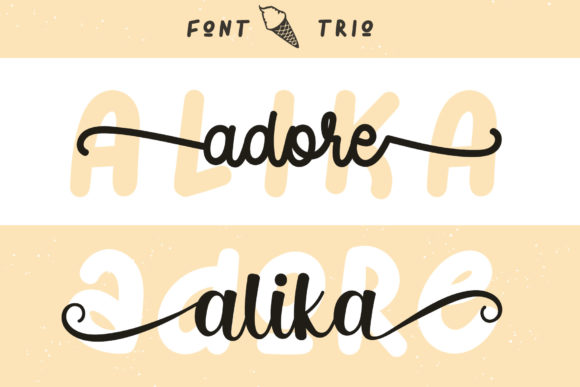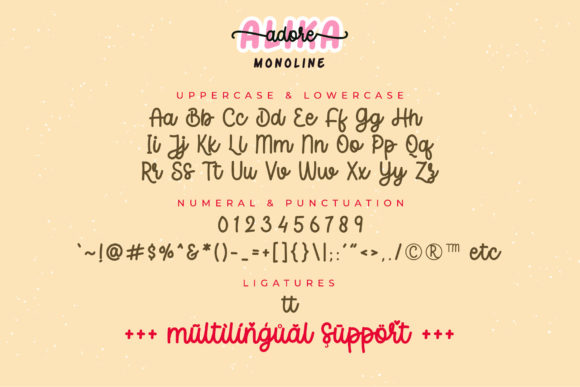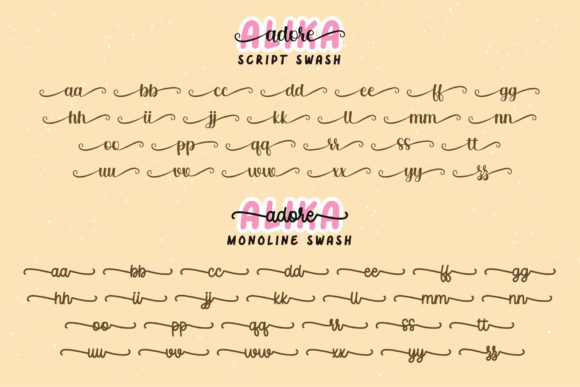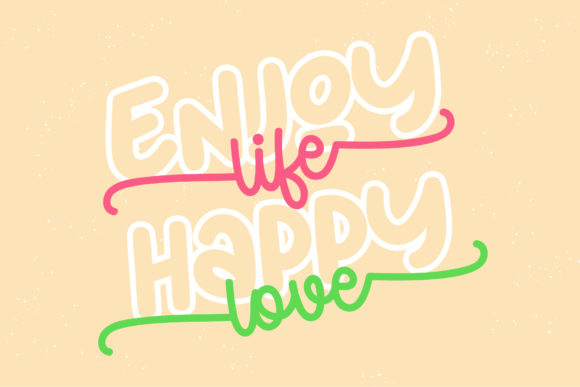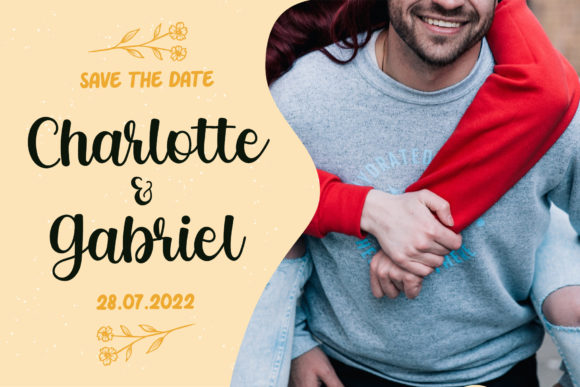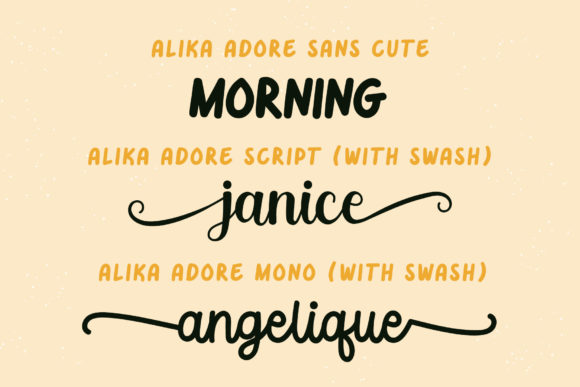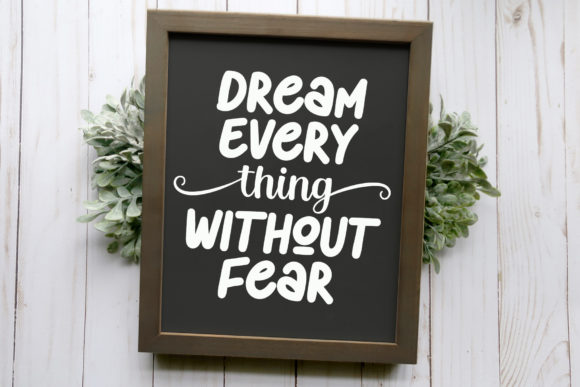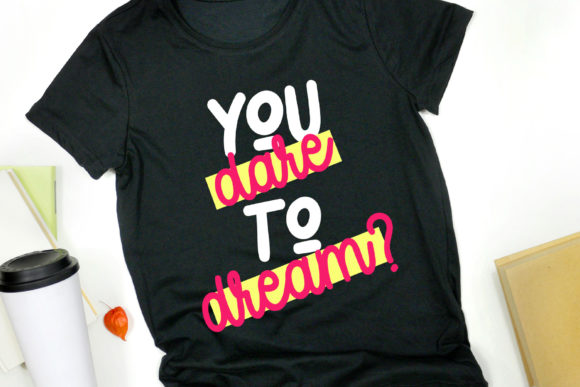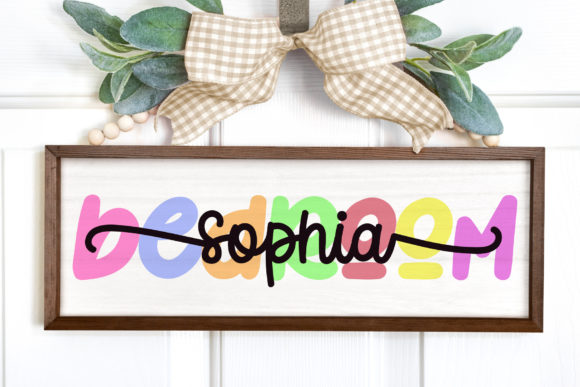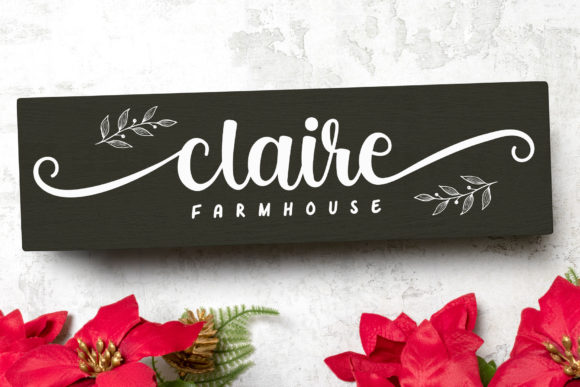
Adore Alika Font
About Adore Alika Font
Adore Alika consists of two fonts designed to complement each other perfectly. Together or apart, these fonts are ideal for adding a chic and cheery touch to your crafts. This font is PUA encoded which means you can access all glyphs and swashes with ease!